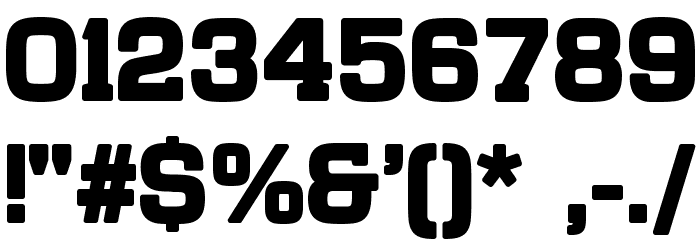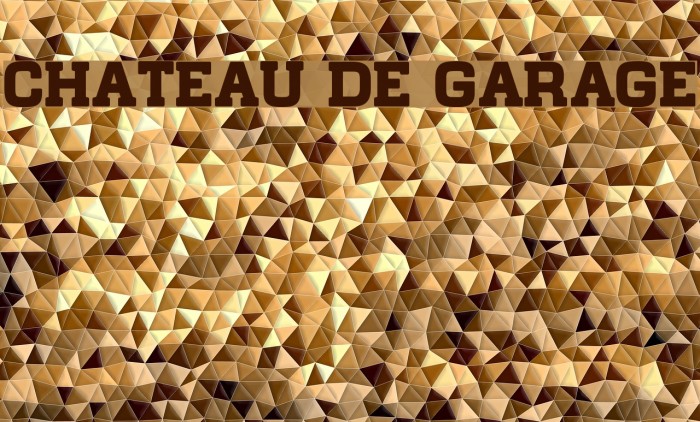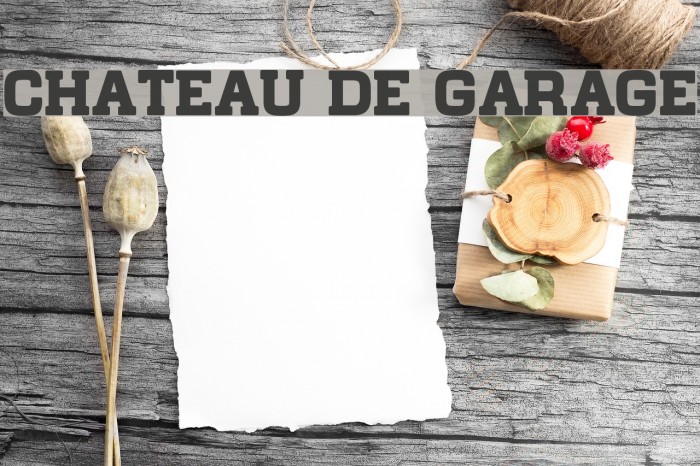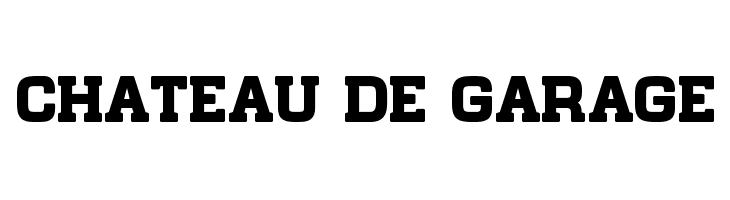
Chateau de Garage Font
This font exhibits a bold and robust character with a strong presence, making it ideal for impactful designs. The letters are uniformly thick, with a slight curvature that adds a touch of softness to the otherwise solid structure. The uppercase and lowercase letters maintain a consistent style, ensuring readability and coherence across different text sizes. The numbers and special characters are designed to match the boldness of the alphabet, providing a comprehensive and cohesive look. The font's design is reminiscent of vintage signage, yet it carries a modern twist that makes it versatile for contemporary use. Its slab serif style gives it a classic feel, while the bold weight ensures it stands out in any application.
A bold, slab serif font with a vintage yet modern appeal.
- Proposed Projects: Ideal for branding, posters, headlines, and any design requiring a strong, impactful typeface.
- Category: Slab Serif
- Overall Style: Vintage, Modern